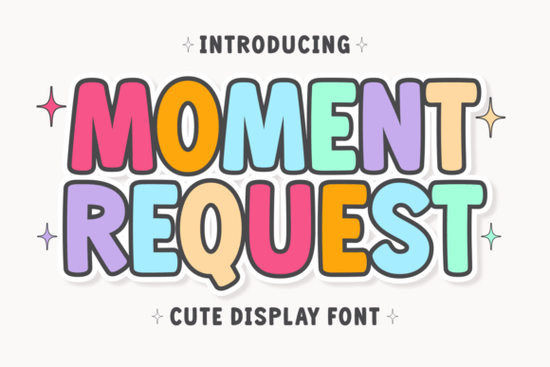
If you've been searching for a display font that's equal parts playful, retro, and eye-catching, Moment Request delivers all three without overcomplicating your designs. It's a bubbly typeface with subtle geometric shapes baked into every letter, giving it a personality that sits somewhere between a candy shop and a vintage record store. Whether you're designing birthday invitations, YouTube thumbnails, or T-shirt graphics, this font brings instant energy to any project. You can check it out on Moment Request at Creative Fabrica.
What Kind of Projects Does Moment Request Work Best For?
Moment Request is a display font, which means it's built for headlines, titles, and short bursts of text not long paragraphs. Think of it as the font you reach for when you want a design to feel fun, groovy, and full of personality. Here are some popular ways designers and crafters use it:
- Birthday party invitations and flyers its bubbly letterforms feel festive without being childish
- YouTube thumbnails and social media graphics the bold shapes grab attention even at small sizes
- Digital planners and stickers adds a cheerful, maximalist vibe to pages
- Branding and logos works especially well for casual, youthful brands
- T-shirt and print-on-demand designs the retro flair pairs well with boho and vintage aesthetics
- Summer camp flyers and event posters readable and energetic at the same time
- Casual game interfaces the playful geometry fits lighthearted game themes
If you've ever used something like Marshmellow Font, you'll notice a similar bouncy, approachable quality but Moment Request leans a bit more geometric and retro, pulling from seventies design grooves with a boho twist.
Is Moment Request Readable Enough for Print Projects?
This is a fair question for any display font. The good news: Moment Request was designed with readability in mind. Even though it has a bubbly, decorative style, each character maintains clear shapes and consistent spacing. It won't replace a clean serif or sans-serif for body text, but for headlines, product packaging, and signage, it holds up well.
Compared to something like Street Writing Font, which leans into an urban, graffiti-inspired edge, Moment Request feels more approachable and versatile. It's not trying to be edgy it's trying to be inviting.
Does It Support Multiple Languages?
Yes. Moment Request includes multilingual character support, which means you can use it for projects in languages that require accented or special characters. This is especially useful if you sell print-on-demand designs internationally or create content for a multilingual audience. Not every display font includes this, so it's a practical feature worth noting.
How Does It Compare to Other Popular Display Fonts?
Moment Request sits in a specific niche: retro-bubbly with a modern edge. Here's how it stacks up against a few other trending options:
- vs. Funky Grunge Font Funky Grunge is rougher and more distressed. Moment Request is cleaner and more playful. Choose based on whether your design needs grit or cheer.
- vs. Real Wavy Stacked Font Real Wavy brings a stacked, wavy layout that's bold and layered. Moment Request keeps things more rounded and bubbly.
- vs. Cormorant Garamond Font These are completely different worlds. Cormorant Garamond is an elegant serif for editorial and formal work. Moment Request is for when you want the opposite energy loud, fun, and casual.
The key is matching the font to the mood of your project. Moment Request works best when you want your design to feel energetic, nostalgic, and approachable.
What Gives It That Retro-Vintage Feel?
The seventies-inspired geometry is the secret. Each letter carries rounded corners and subtle curves that echo groovy poster designs from that era, but the clean lines keep it from looking dated. It also carries a boho flair that pairs naturally with earthy color palettes, hand-drawn illustrations, or textured backgrounds. If you're building a brand with a retro-modern aesthetic, this font fits right in.
For designers who love mixing eras, pairing Moment Request with a clean sans-serif for body text creates a nice contrast. The display font does the heavy lifting visually while the supporting typeface keeps everything readable.
Quick Checklist Before You Start Designing
- ✅ Use it for headlines and short text avoid setting full paragraphs in this font